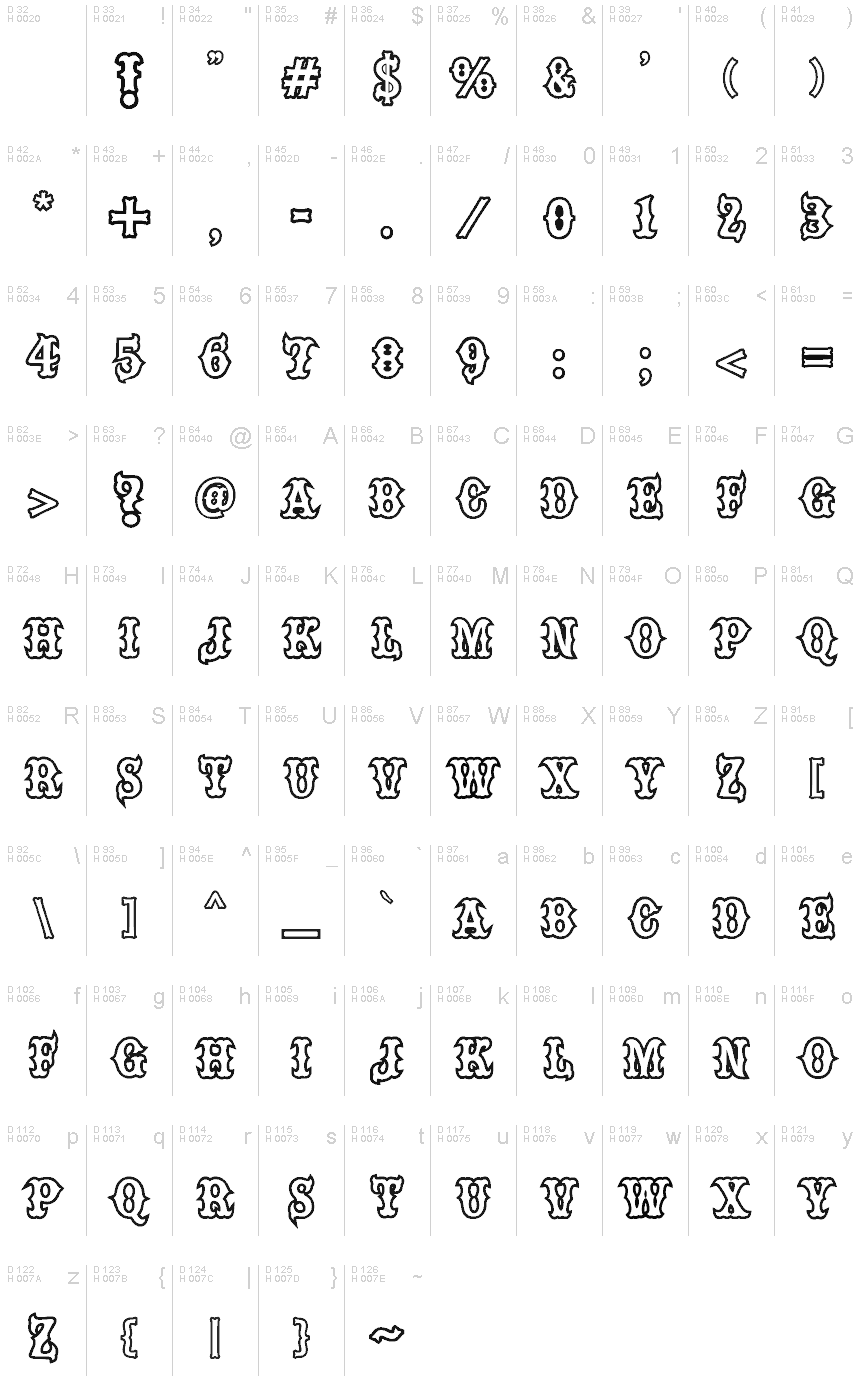
one percent
"One Percent" is a bold, gothic-styled font designed by Woodcutter Manero. Its outlined, striking letterforms exude an air of defiance and strength. The font's angular, edgy aesthetic lends itself well to various design applications, from eye-catching headlines and logos to gritty, urban-inspired layouts.
Its distinctive character and commanding presence make it a versatile choice for projects seeking to convey a sense of authority, rebellion, or a strong, unapologetic visual identity. This font's unique blend of style and impact ensures it will leave a lasting impression on audiences across a range of creative contexts.